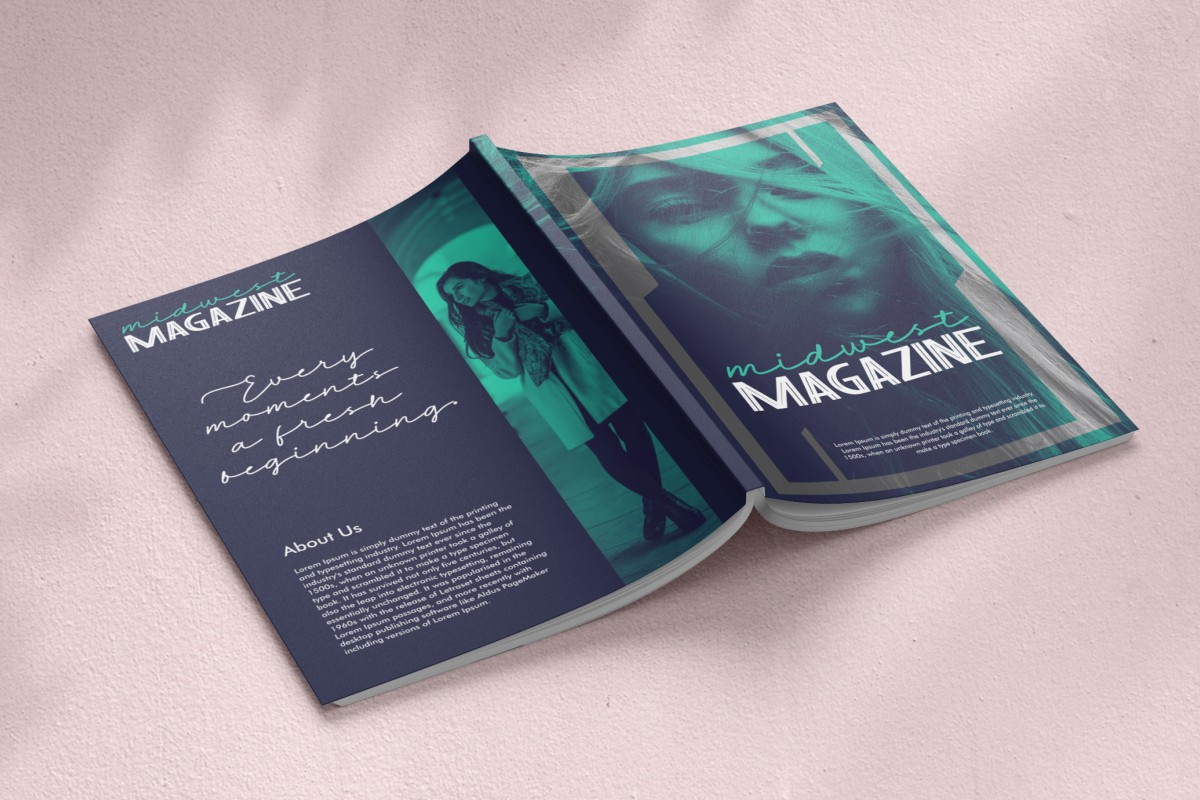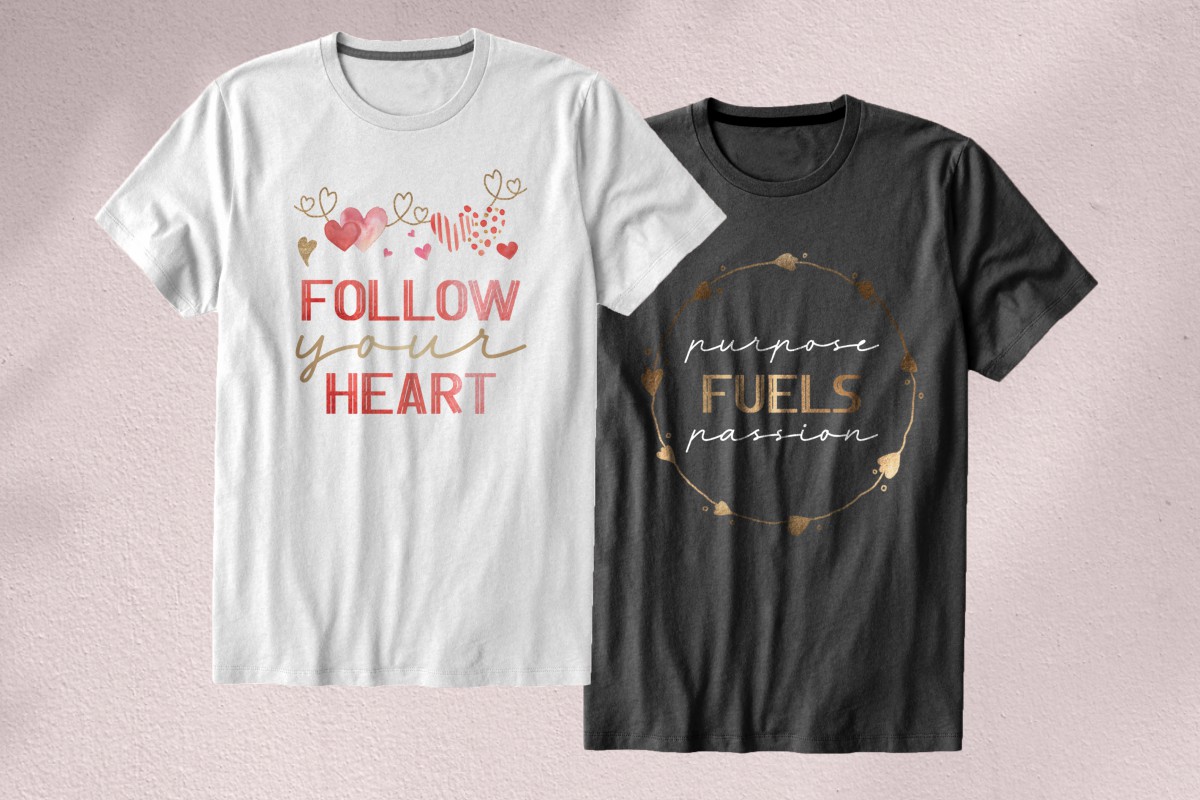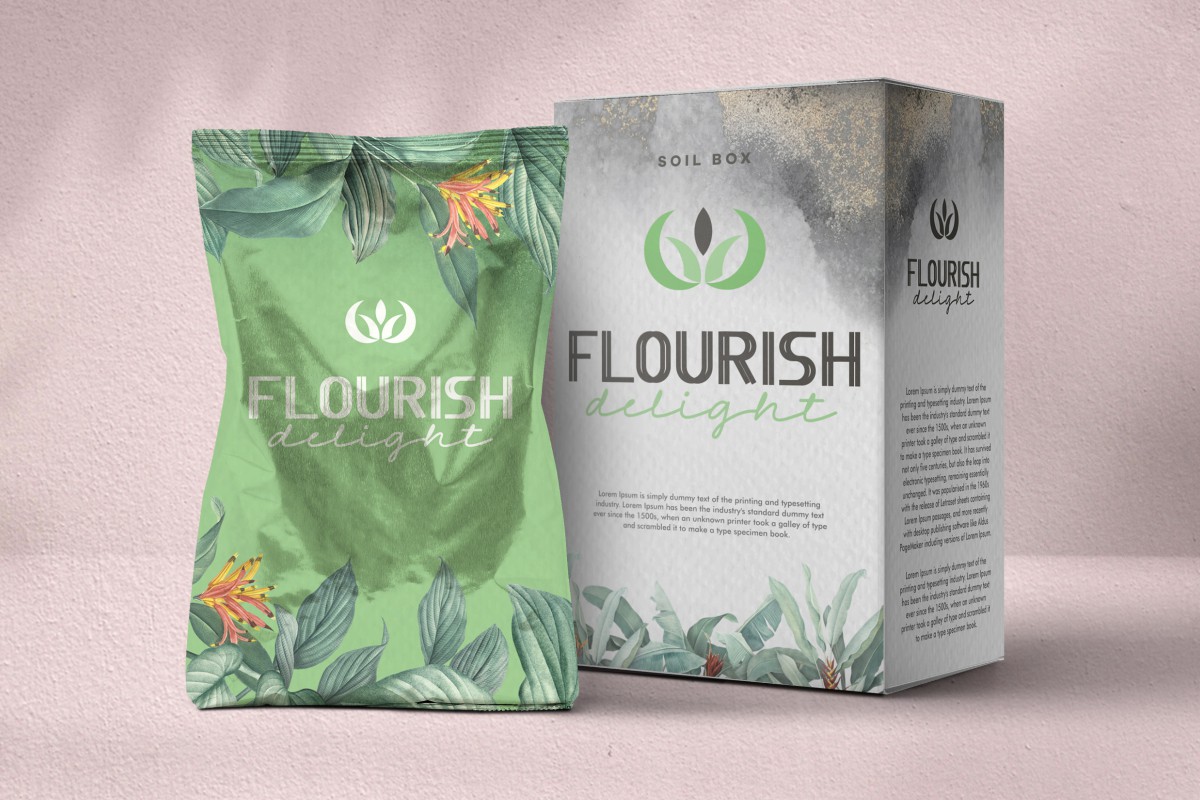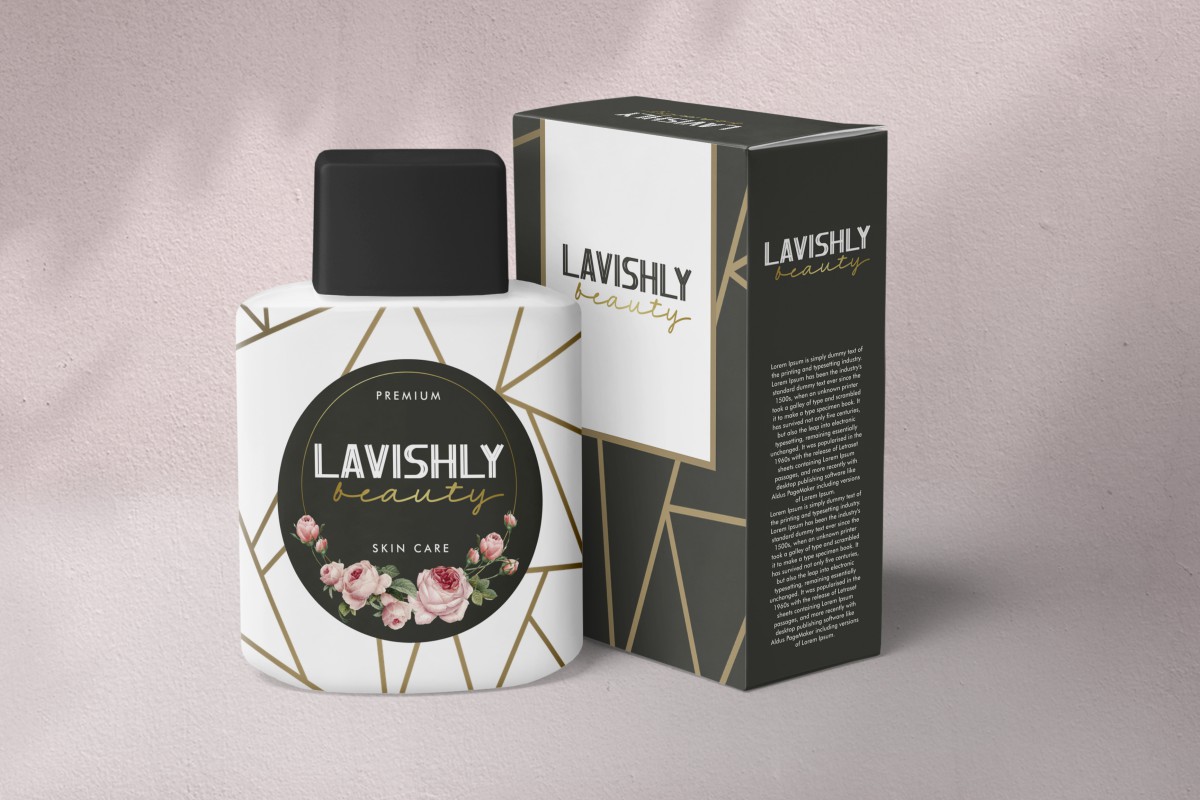
Stelena Font Duo
This is a new font duo from Vintype Studio with two different font styles : display and handwriting font. The theme are stylish yet fun and unique look. The perfect combination will make your work spectacular. You will make a difference in your projects with this font style perfect full come on!
This font includes full set of Uppercase Basic Character and stylish script. They blend together so well, that you can create logos, social media posts, invites and many other projects books, frame art, headline, logos, magazine, product designs, quotes, writing on t-shirt and more!